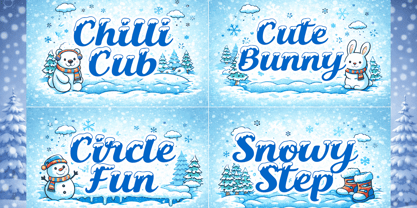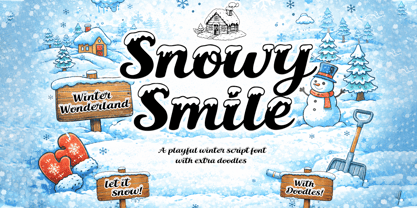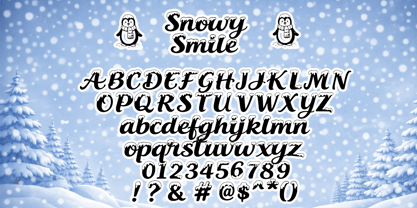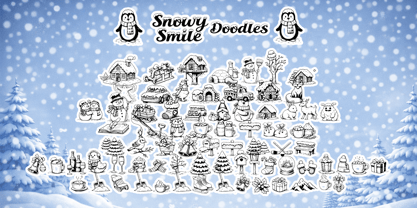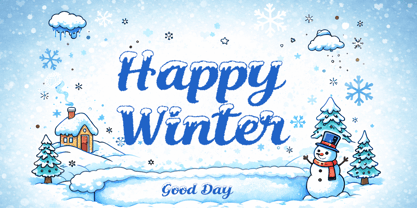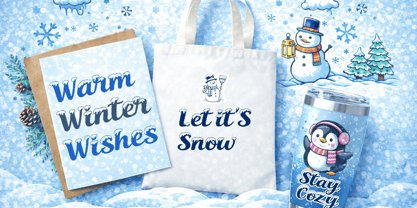
Snowy Smile
by Cocodesign
The Snowy Smile Font Family was designed by Muhammad Zaini and published by Cocodesign. Snowy Smile contains 3 styles and family package options. More about this family
Snowy Smile is a delightful winter script font that captures the essence of snowy landscapes, cozy moments, and cheerful holiday vibes. With its soft curves, rounded strokes, and charming snow-themed details, this font exudes a warm and friendly visual style, making it perfect for winter-themed designs. Snowy Smile brings a fun and festive atmosphere while ensuring clarity and balance for both digital and printed projects. ✨ **Features:** ✔ Playful winter script style ✔ Smooth and clean letterforms ✔ Balanced spacing and readability ✔ Extra winter-themed doodles ✔ Ideal for branding, web design, editorial projects, and more.
Designers: Muhammad Zaini
Foundry: Cocodesign